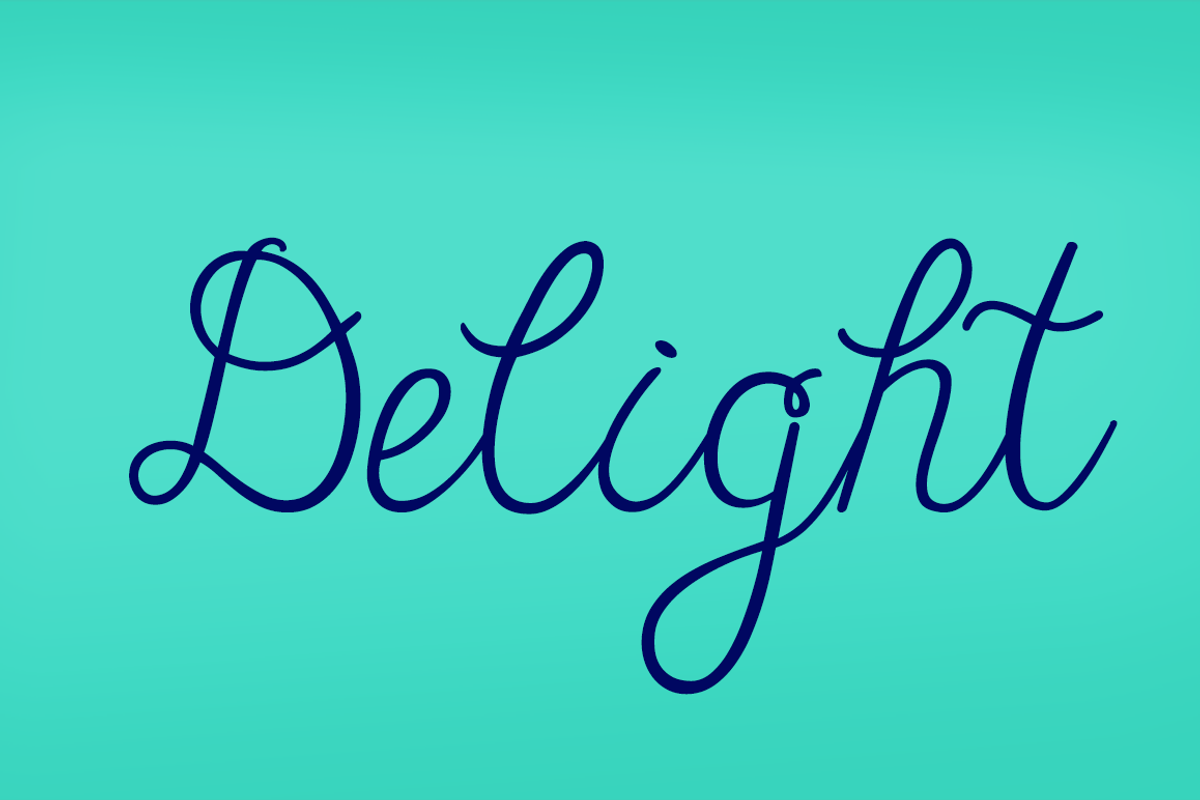
Janda Cheerful Script
Janda Cheerful Script by Kimberly Geswein Fonts is a font selected for branding, posters, packaging, typography.
Why Janda Cheerful Script is worth a look
Janda Cheerful Script by Kimberly Geswein Fonts fits naturally into Branding, posters, packaging, typography.